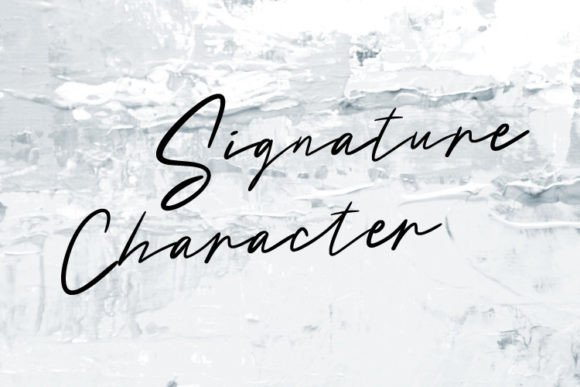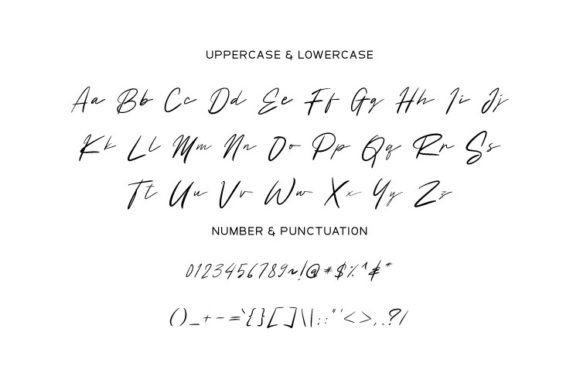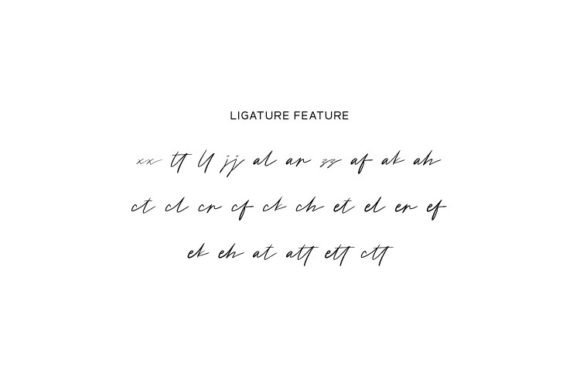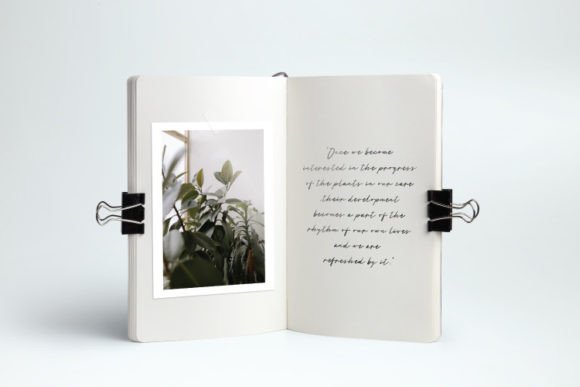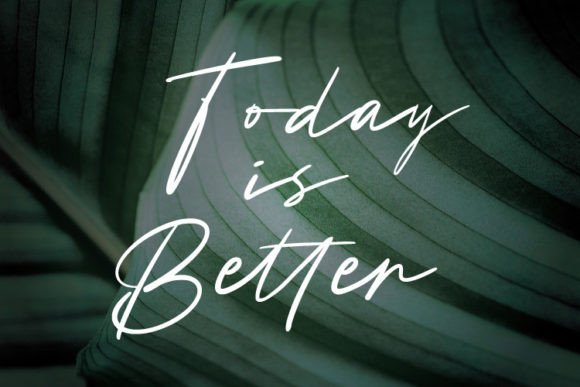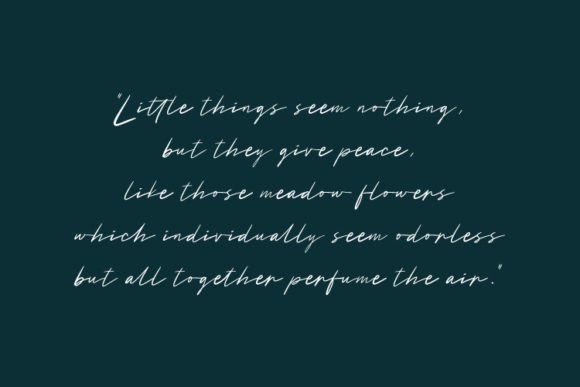
Discover the Elegance of Bahttra Font: Elevate Your Designs with Charming Handwritten Characters
Are you on the hunt for a font that adds a touch of elegance and sophistication to your creative projects? Look no further than the Bahttra Font, a beautiful signature script font that is sure to make your designs stand out. With its charming and elegant handwritten characters, Bahttra Font is the perfect addition to any designer’s toolkit.
What is Bahttra Font?
Bahttra Font is a signature script font that boasts a unique and stylish aesthetic. Its elegant handwritten characters are designed to add a touch of sophistication and refinement to any project. Whether you’re working on a logo, branding materials, or marketing collateral, Bahttra Font is the perfect choice for designers who want to create a lasting impression.
Key Features of Bahttra Font
- Charming Handwritten Characters: Bahttra Font features beautiful, handwritten characters that are sure to add a touch of elegance to your designs.
- Elegant and Sophisticated: With its refined and stylish aesthetic, Bahttra Font is perfect for designers who want to create sophisticated and high-end designs.
- Signature Script Style: Bahttra Font boasts a unique signature script style that is sure to make your designs stand out from the crowd.
- Easy to Read: Despite its elegant and cursive nature, Bahttra Font is easy to read, making it perfect for use in a variety of design applications.
How to Use Bahttra Font in Your Designs
Bahttra Font is incredibly versatile and can be used in a variety of design applications. Here are a few ideas to get you started:
- Logos and Branding: Use Bahttra Font to create a sophisticated and elegant logo that reflects your brand’s values and personality.
- Marketing Collateral: Add a touch of elegance to your marketing materials, such as brochures, flyers, and business cards, with Bahttra Font.
- Wedding and Event Design: Bahttra Font is perfect for wedding and event design, adding a touch of romance and sophistication to your creations.
- Packaging Design: Use Bahttra Font to create beautiful and eye-catching packaging that stands out on store shelves.
Benefits of Using Bahttra Font
There are many benefits to using Bahttra Font in your designs. Here are a few:
- Unique and Memorable: Bahttra Font is sure to make your designs stand out and be remembered.
- Elegant and Sophisticated: Bahttra Font adds a touch of elegance and sophistication to any design.
- Versatile: Bahttra Font can be used in a variety of design applications, from logos and branding to marketing collateral and packaging design.
- Easy to Read: Despite its elegant and cursive nature, Bahttra Font is easy to read, making it perfect for use in a variety of design applications.
Tips for Getting the Most Out of Bahttra Font
Here are a few tips for getting the most out of Bahttra Font:
- Experiment with Different Sizes: Bahttra Font looks great in a variety of sizes, so don’t be afraid to experiment and find the perfect size for your design.
- Pair with Other Fonts: Bahttra Font pairs well with a variety of other fonts, so try pairing it with a bold font for added contrast.
- Use in Combination with Images: Bahttra Font looks great in combination with images, so try using it to add a touch of elegance to your design.
In conclusion, Bahttra Font is a beautiful signature script font that is sure to elevate your designs and make them stand out. With its charming and elegant handwritten characters, Bahttra Font is the perfect addition to any designer’s toolkit. Whether you’re working on a logo, branding materials, or marketing collateral, Bahttra Font is the perfect choice for designers who want to create a lasting impression.